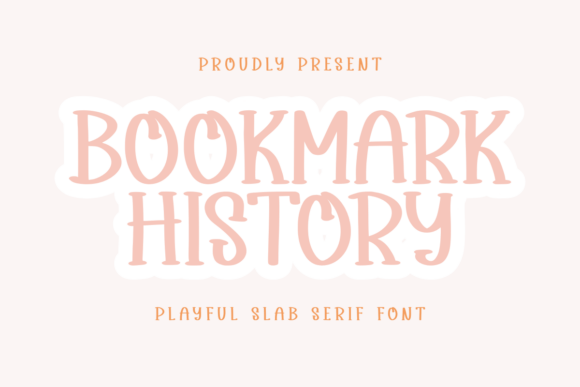
The Designer’s Delight: Unwrapping the Charm of Bookmark History Font
I’ll never forget the time I was working on a wedding invitation project, and my client asked for a font that was both elegant and playful. I scoured the internet, trying out font after font, but nothing seemed quite right. That was until I stumbled upon Bookmark History Font. This cute and minimalist slab serif font has since become a staple in my design toolkit, and I’m excited to share its charm with you! 😊
Bookmark History Font has won my heart with its unique blend of simplicity and personality. Here’s what I’m obsessed with:
- ✨ Cute and minimalist design: Perfect for creating visually appealing designs that are both modern and timeless.
- ✅ High versatility: Works beautifully for a wide range of projects, from greeting cards and wedding invitations to gift labels, mugs, and t-shirts.
- 💡 Excellent for quotes and labels: The font’s clear and legible design makes it ideal for showcasing inspirational quotes or creating eye-catching labels.
- 🤔 Limited italic options: While the font does offer some italic variations, they’re not as extensive as some other fonts.
- ⚠️ Not ideal for body text: Due to its slab serif design, Bookmark History Font is best suited for headlines, titles, and short paragraphs rather than lengthy body text.
The Story Behind Bookmark History Font
While the true origins of Bookmark History Font remain a mystery, it’s easy to imagine a designer with a passion for simplicity and elegance creating this beautiful font. Perhaps they wanted to craft a typeface that would bring a touch of whimsy to everyday designs, making them more delightful and engaging.
| Font Name | Bookmark History Font |
| Author | CraftedType Studio |
| What type of projects is Bookmark History Font best suited for? | Bookmark History Font is perfect for greeting cards, wedding invitations, gift labels, mugs, t-shirts, quotes, labels, and more! |
| Does Bookmark History Font support OpenType features? | Yes, Bookmark History Font offers a range of OpenType features, including glyphs and stylistic alternates, to enhance your designs. |
| Is Bookmark History Font available in multiple weights? | Bookmark History Font comes in a selection of weights, making it versatile for various design applications. |
With its irresistible charm and versatility, Bookmark History Font is sure to become a favorite in your design arsenal. Get creative and enjoy experimenting with this delightful font! 🎉